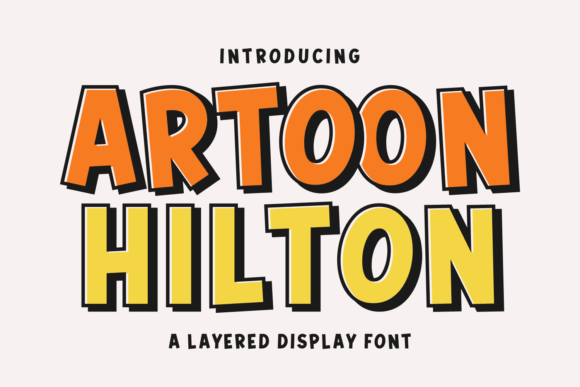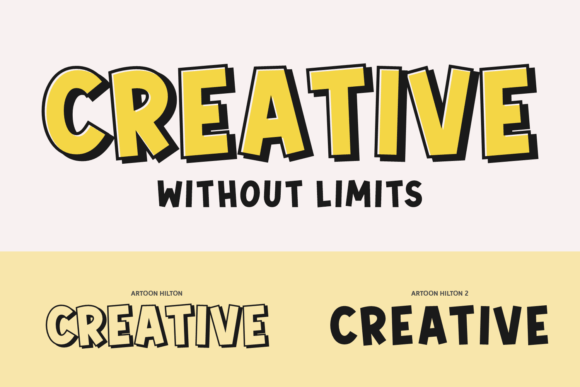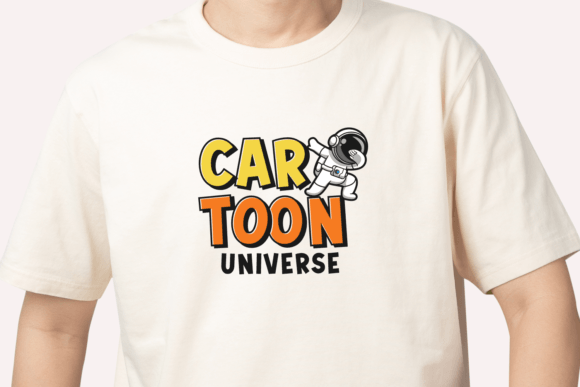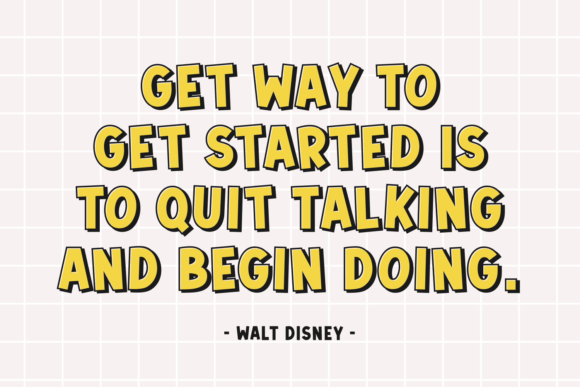
Artoon Hilton Font: A Playful Bold Display Font for Eye-Catching Designs!
About the Artoon Hilton Font
Get ready to be inspired by Artoon Hilton Font, a fresh and dynamic typeface for modern creators. Artoon Hilton is a playful and vibrant all-caps bold font designed to bring joy and excitement to your projects. With its whimsical shapes and lively curves, this font is perfect for creating eye-catching titles, posters, and designs that stand out from the crowd. Embrace the fun and creativity of Artoon Hilton and add a splash of amusement to your next project!
Artoon Hilton thrives in headline applications, short taglines, and playful branding where its bold, whimsical nature can shine. It’s ideal for children’s products, entertainment projects, and brands seeking a fun, approachable aesthetic. Avoid using it for body copy or UI elements; its playful forms are not optimized for readability in extended text.
Consider pairing Artoon Hilton with a clean sans-serif like Open Sans for a balanced contrast, or a more geometric sans-serif such as Futura for a modern feel. A classic serif like Garamond could provide sophisticated counterpoint, softening the overall boldness while maintaining visual interest.
Its core personality is undeniably bold and playful, making it unsuitable for serious or corporate contexts. However, it works well for projects needing a vibrant, youthful energy.